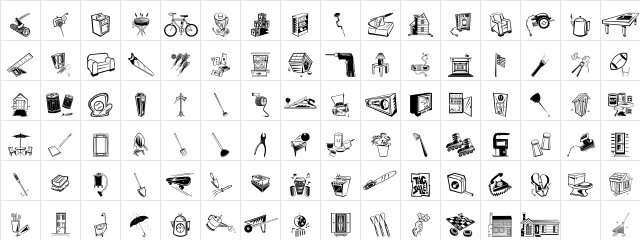
Df Home Improvement ITCTT Regular
Design Context for Df Home Improvement ITCTT Typeface
Df Home Improvement ITCTT is a composed and adaptable typeface that performs quietly and consistently across a wide range of design contexts.